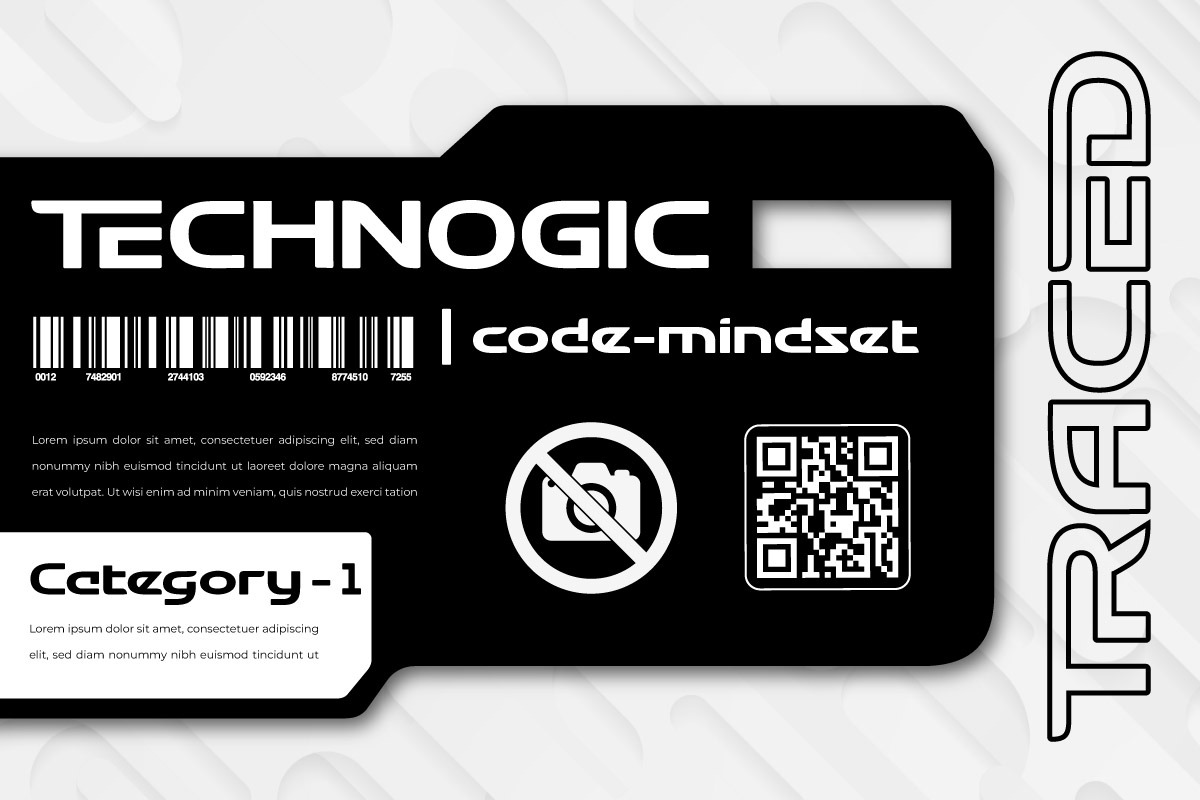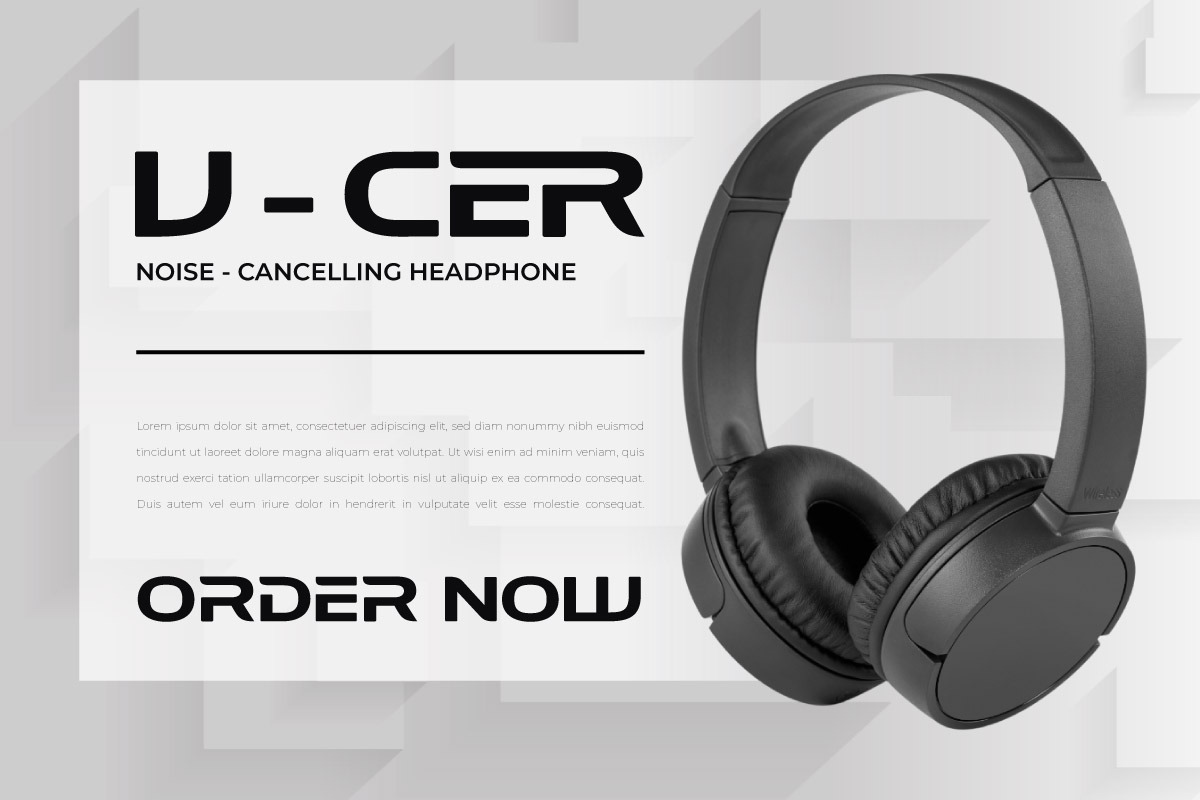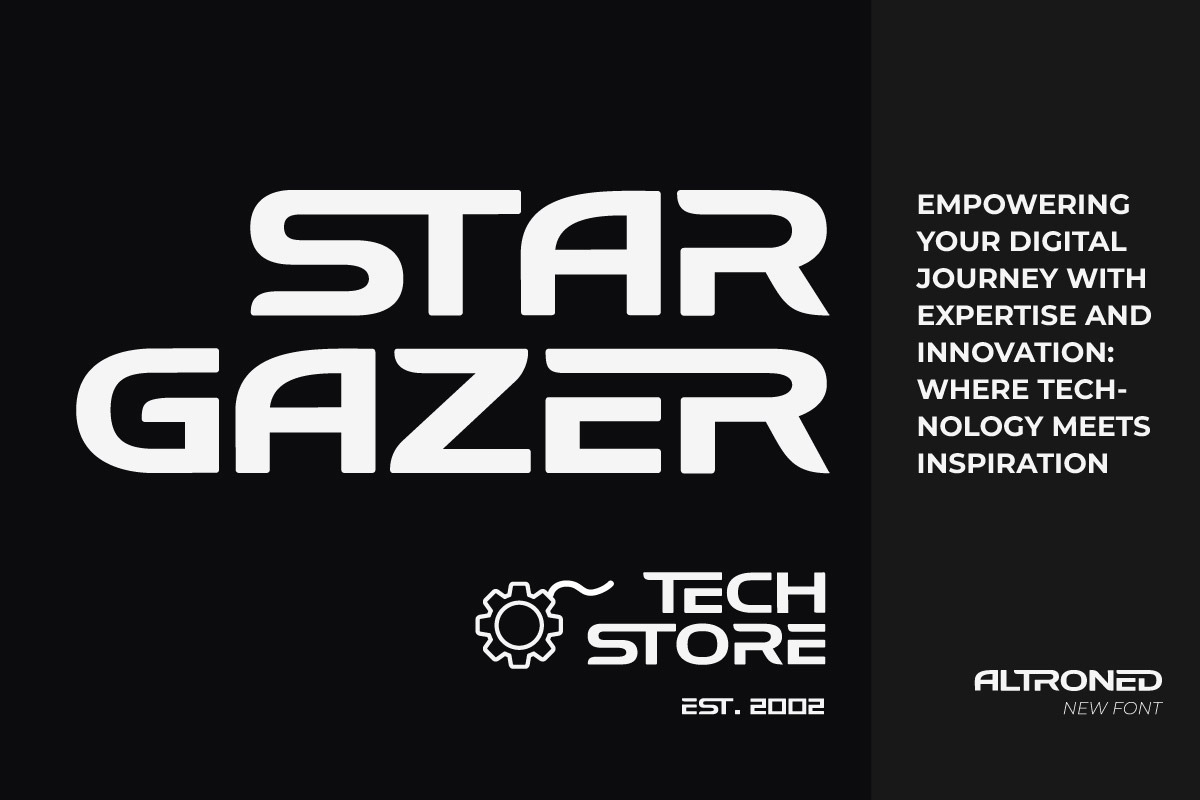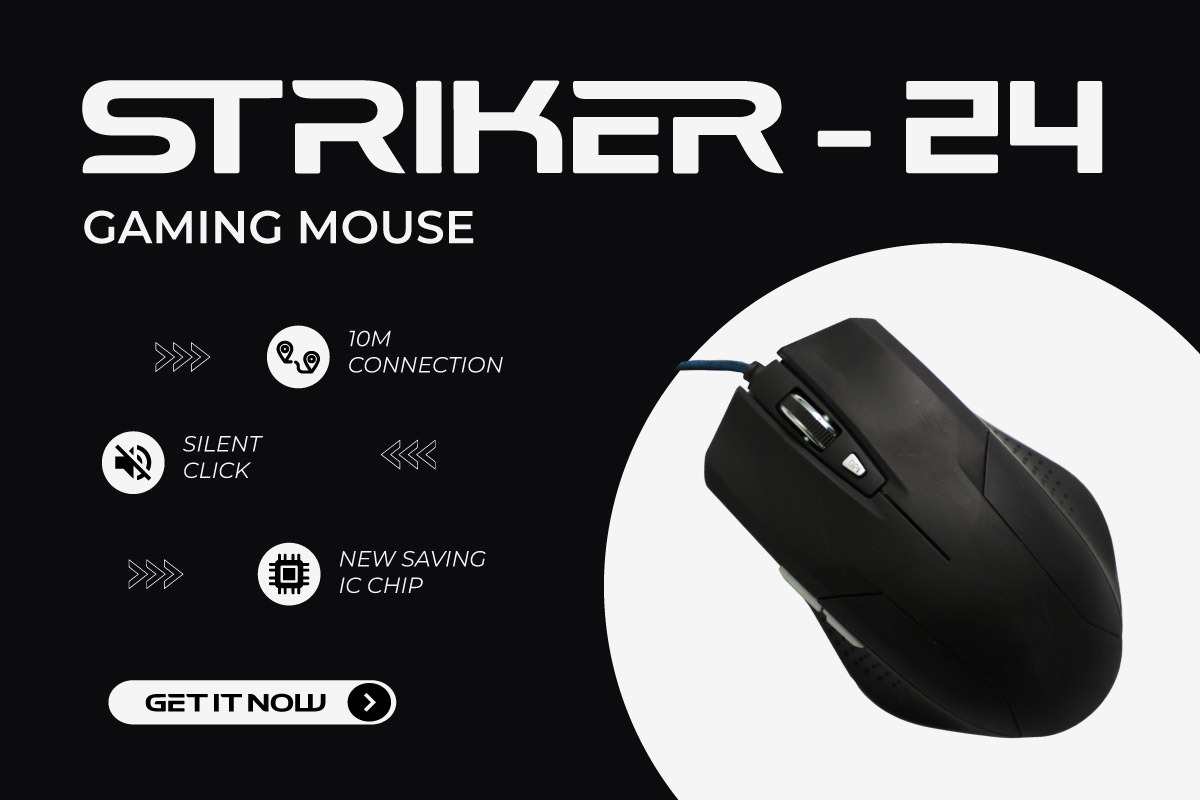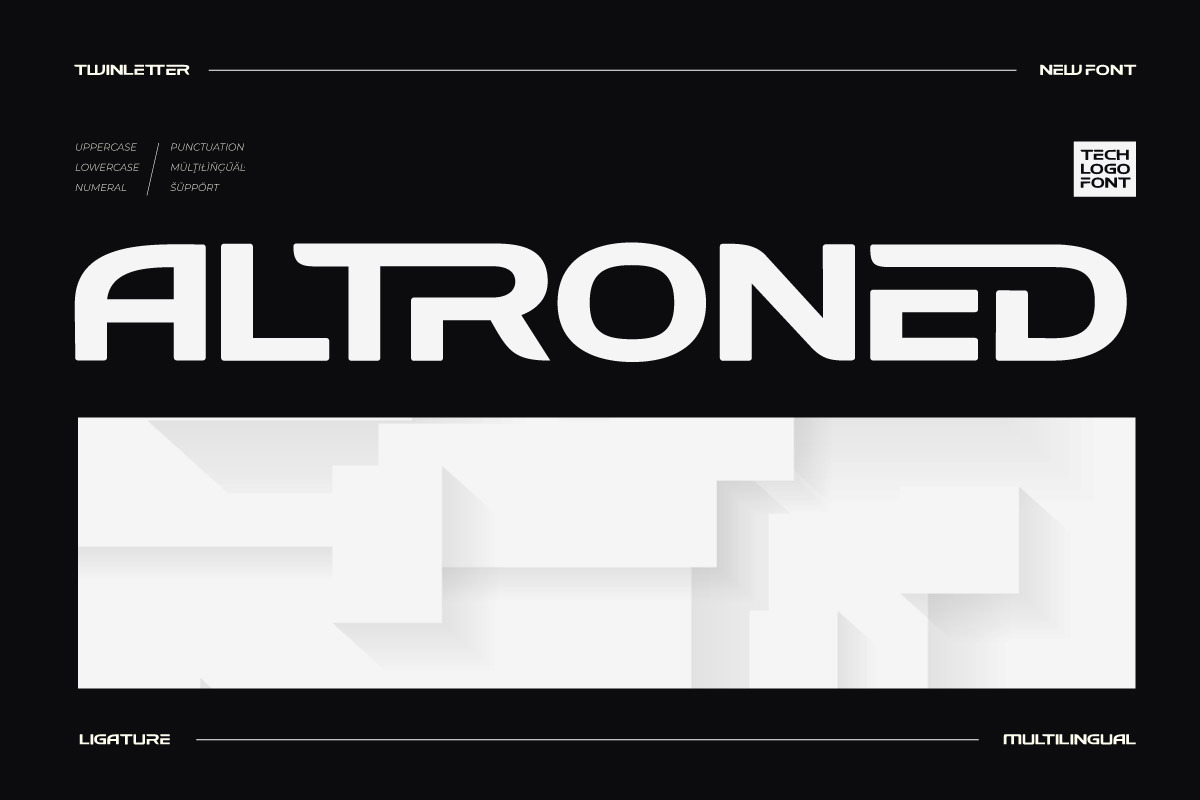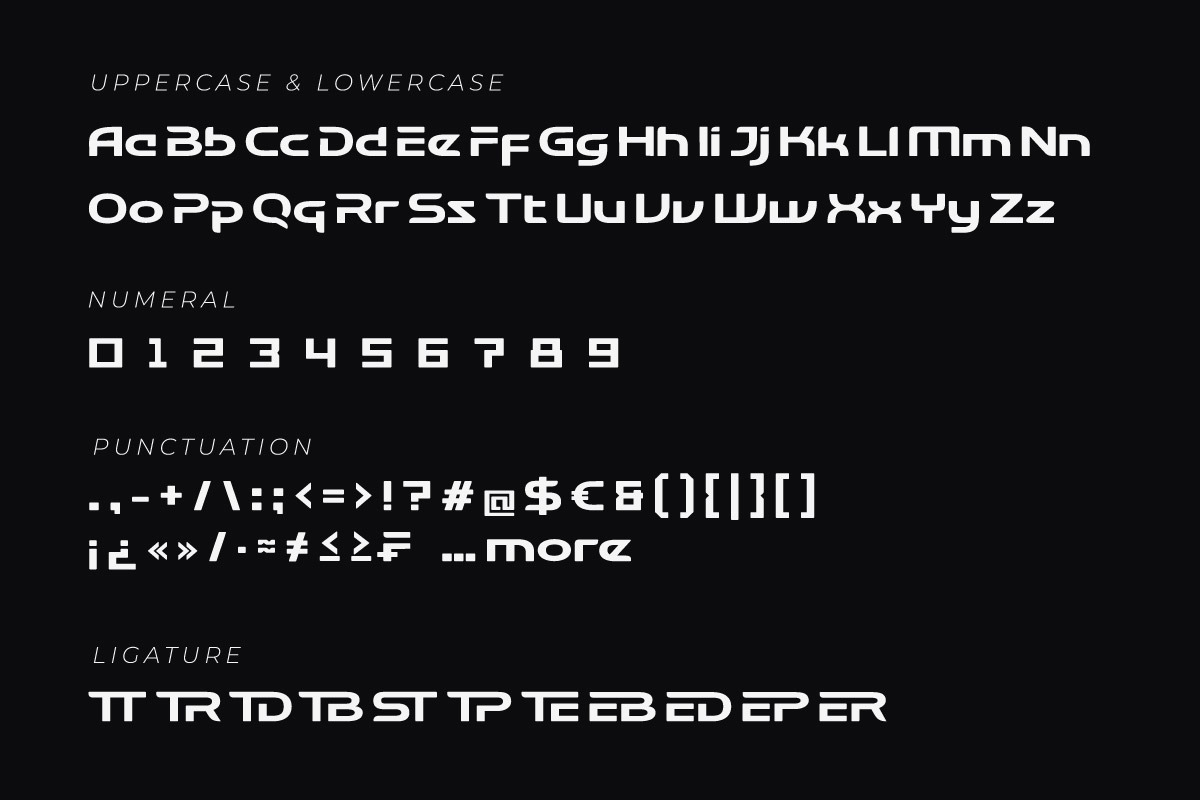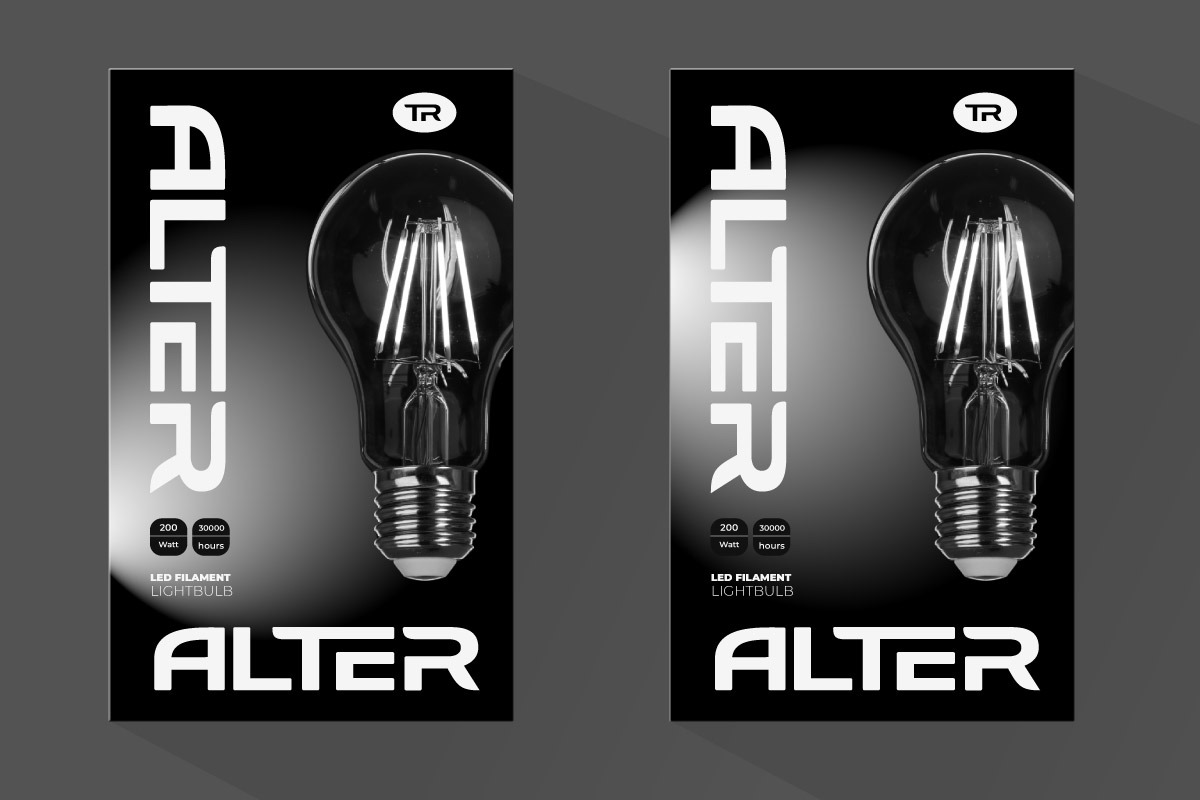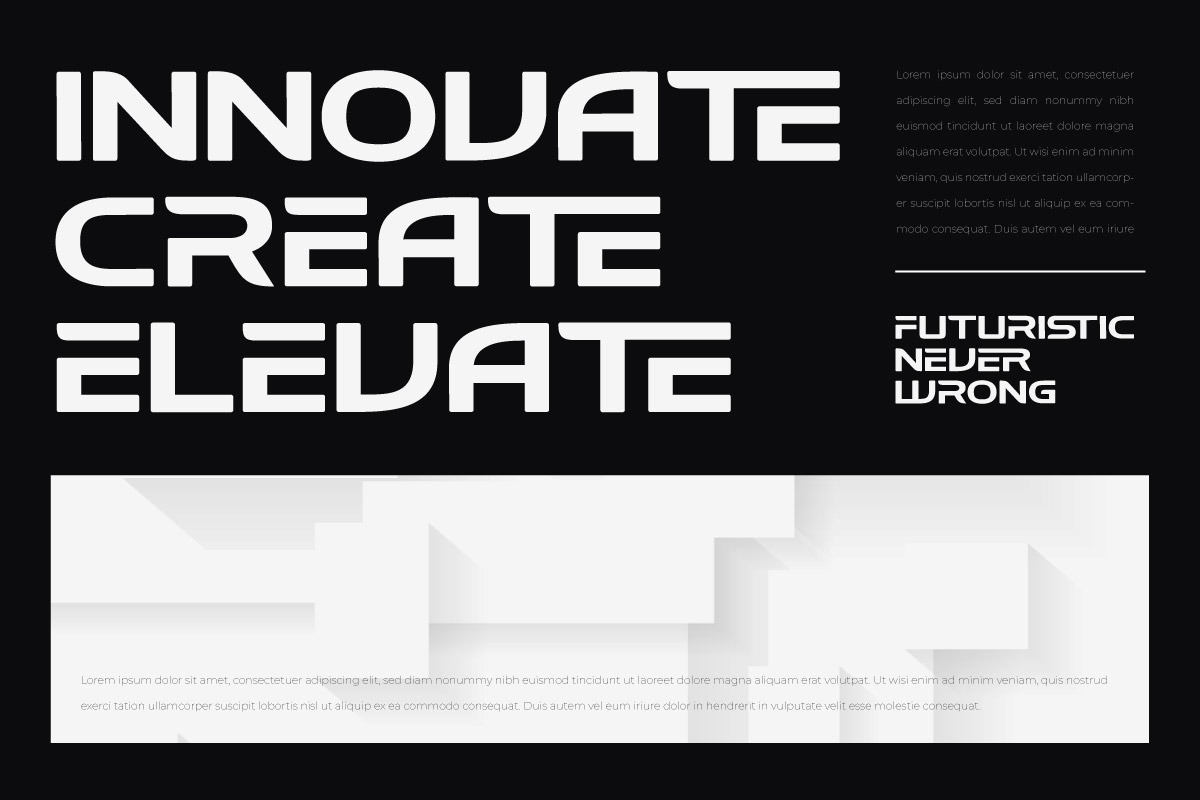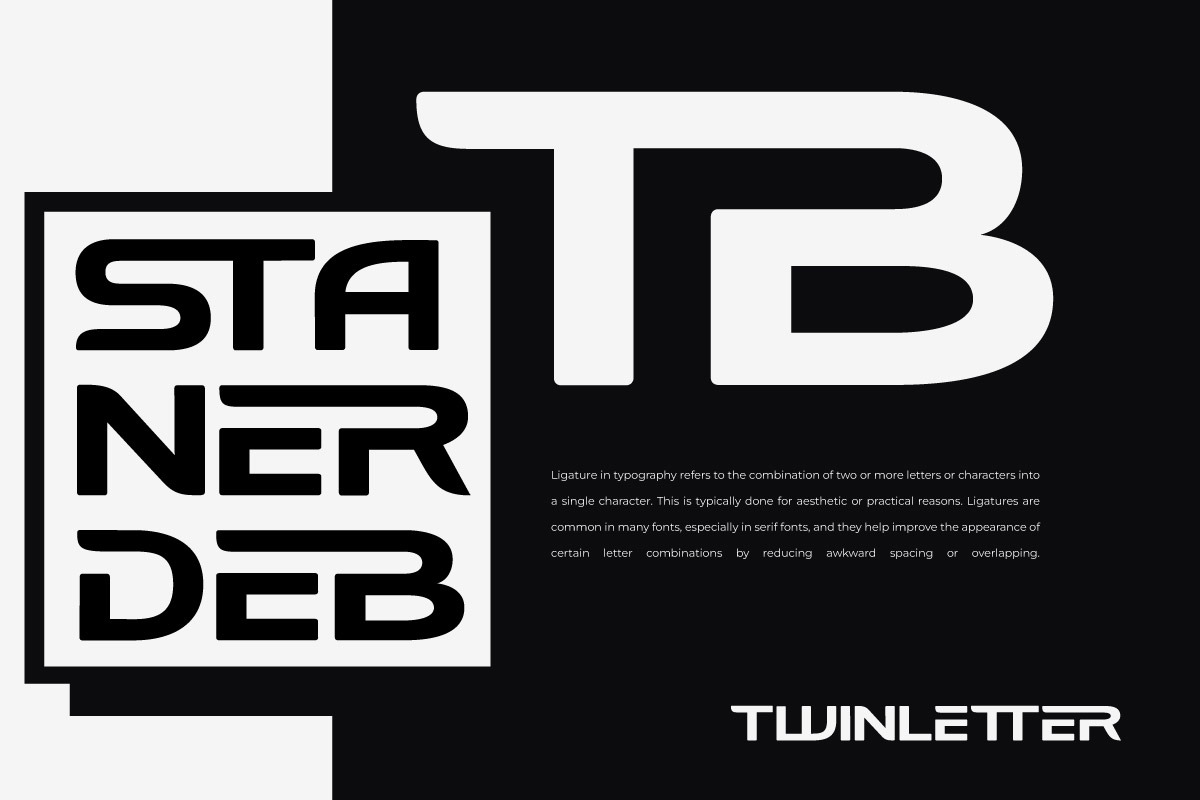
Altroned - Tech Logo Font
Altroned is a tech logo font specifically designed for branding technology and digital products. This font has a futuristic, modern, and bold style, reflecting a professional, sophisticated impression and strong durability.
The solid shape of the letters with sharp corners gives the impression of being sturdy and steady, while there are several curved parts that add a dynamic and powerful touch. This font is available in uppercase, lowercase, numbers, punctuation, and supports multilingualism and ligatures.
Altroned is very suitable for use as a technology company logo, application or software branding, electronic equipment, video game titles, and other digital interface displays. The overall minimalist design with black and white contrast makes this font look modern and eye-catching.